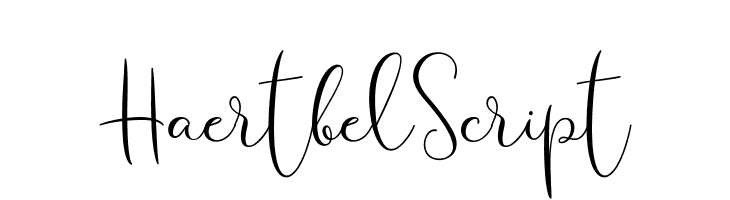
An elegant script font with flowing, interconnected letters and ornate flourishes.
A bold, cursive script font with dynamic, flowing strokes and elegant connections.
An elegant and flowing script font with intricate loops and swirls.
A bold, flowing script font with elegant curves and dynamic slant.
A playful and elegant script font with fluid, connected letterforms and medium contrast.
An elegant script font with flowing, cursive letterforms and decorative swirls.
A lively, flowing script font with elegant cursive letterforms.
A modern, elegant script font with flowing, interconnected characters.
A dynamic and elegant script font with fluid, connected letterforms.
A playful and elegant script font with flowing, cursive letterforms.